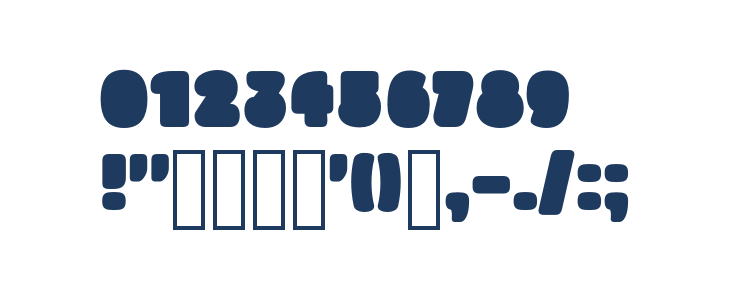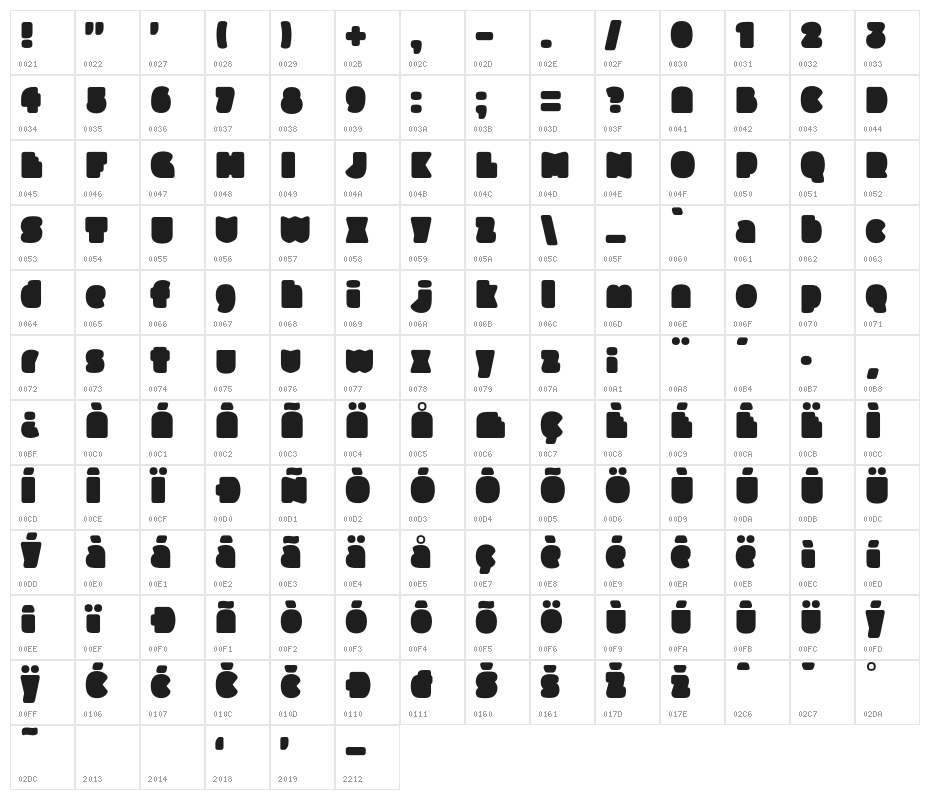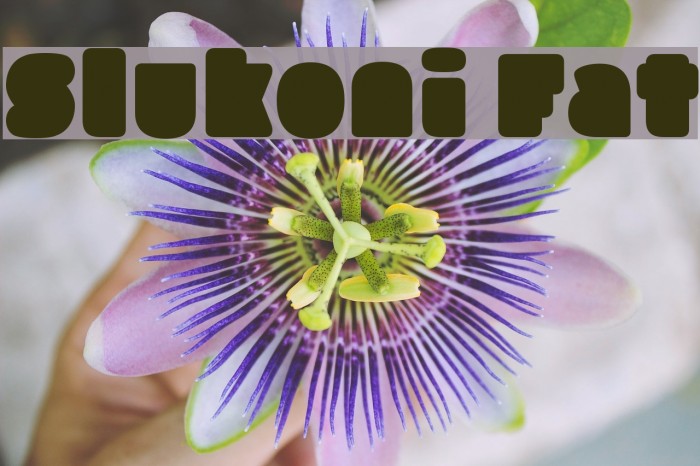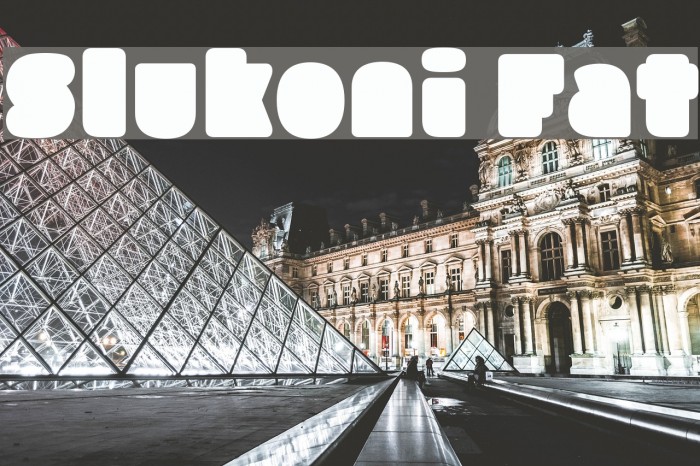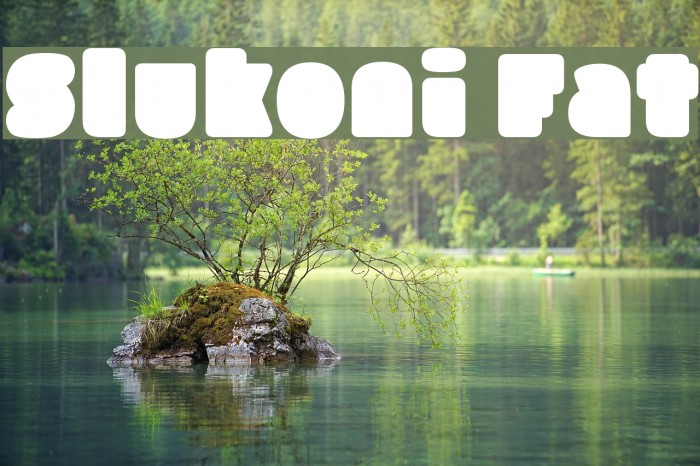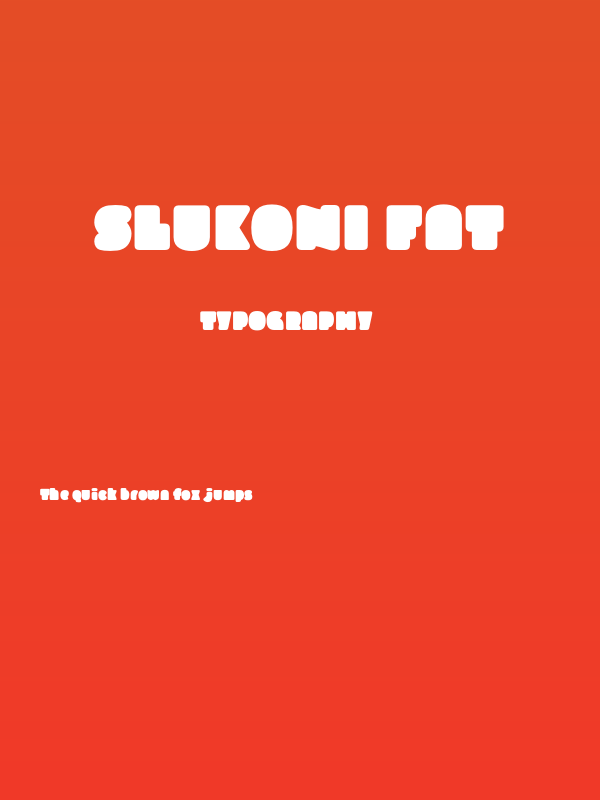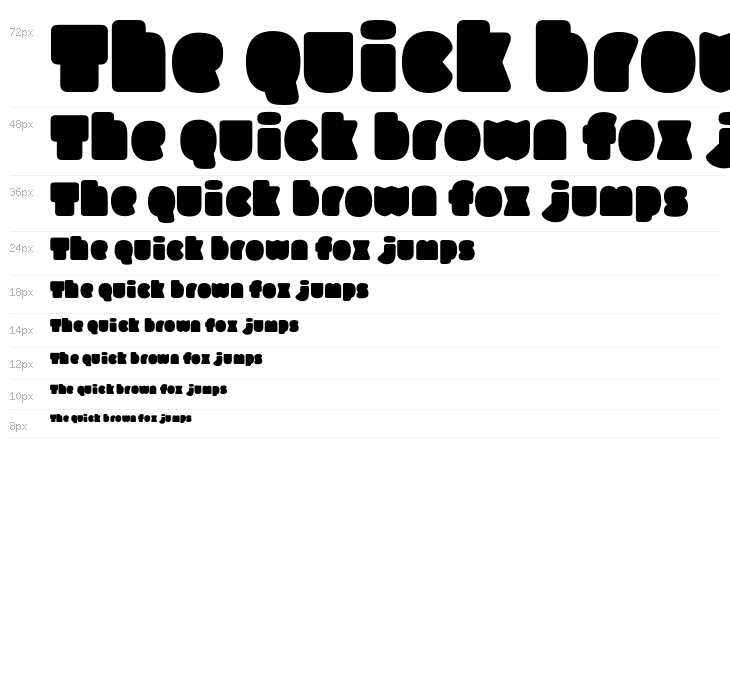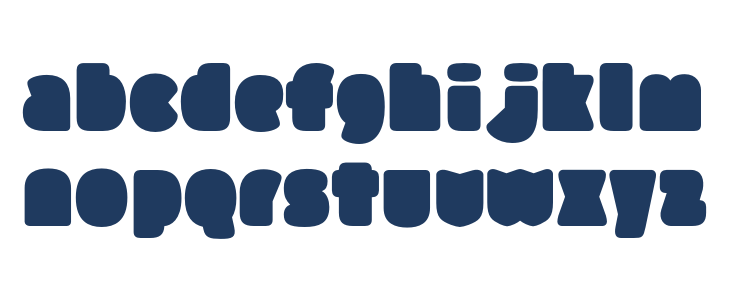
Slukoni Fat Font
Slukoni Fat Description
This font features bold, rounded characters with a playful and chunky appearance. The letters are uniformly thick, creating a strong visual impact. The rounded edges give it a friendly and approachable feel, making it suitable for designs that aim to capture attention with a fun and lively tone. The numbers and special characters maintain the same bold style, ensuring consistency across all elements. Its unique style is both eye-catching and versatile, ideal for projects that require a standout typeface.
| Proposed Projects | Ideal for children's books, playful branding, posters, and event invitations. |